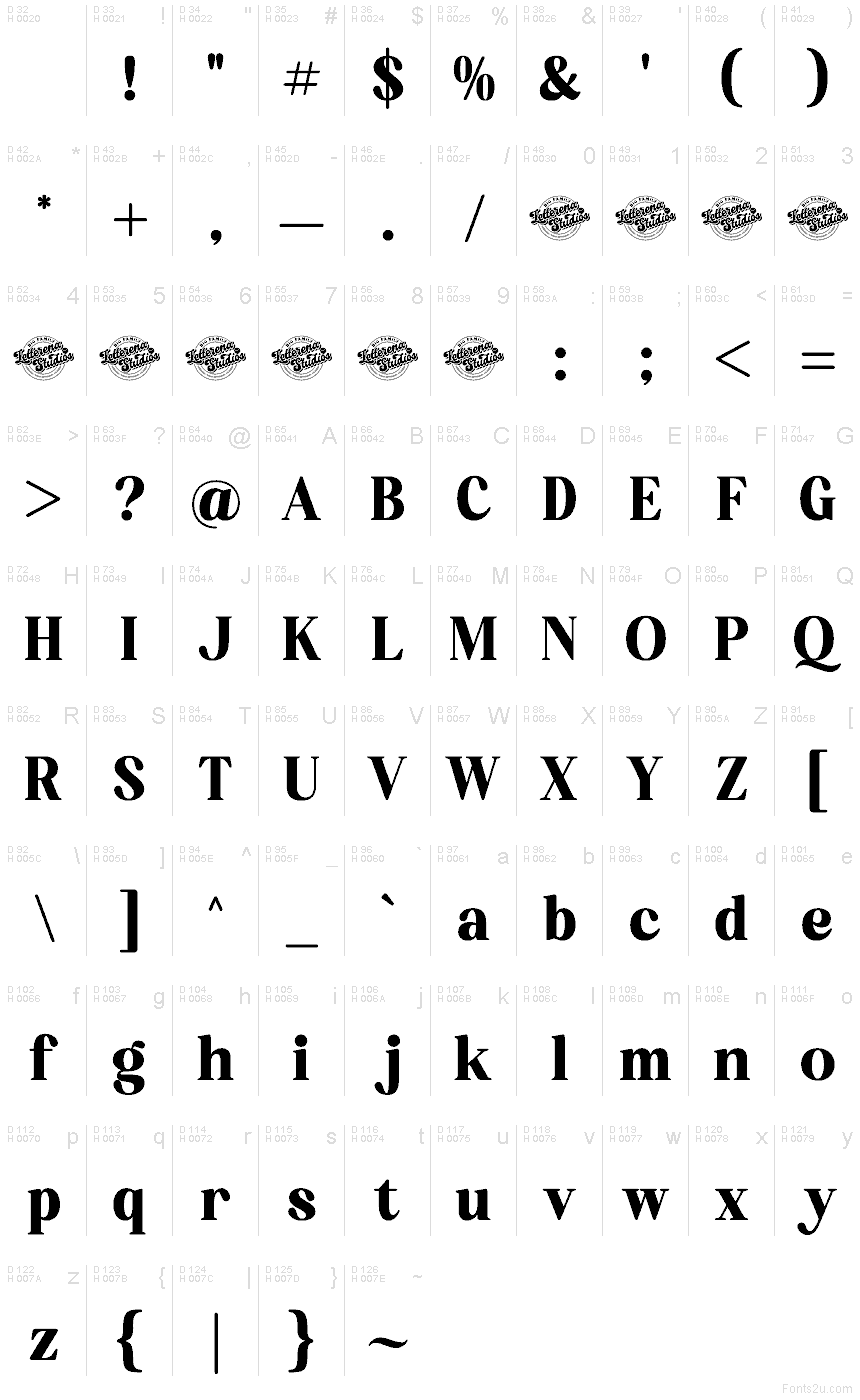
Bredga font by Letterena Studios is a free chunky serif typeface. Its personality comes from plush, inky curves and scooped cuts that catch the light like carved wood—bold, rounded terminals meet sturdy stems for a confident, tactile feel. The rhythm is tight and bouncy, giving headlines a satisfying thud without feeling stiff or fussy.
Using Bredga, you get warmth and presence that shines on boutique branding, gourmet packaging, editorial titles, posters, beauty campaigns, and cafe menus. This free font holds together at larger sizes, where those buttery curves really sing. Pair it with a clean, understated sans for body copy, and add a hair of letterspacing to small subheads to keep things breathable.